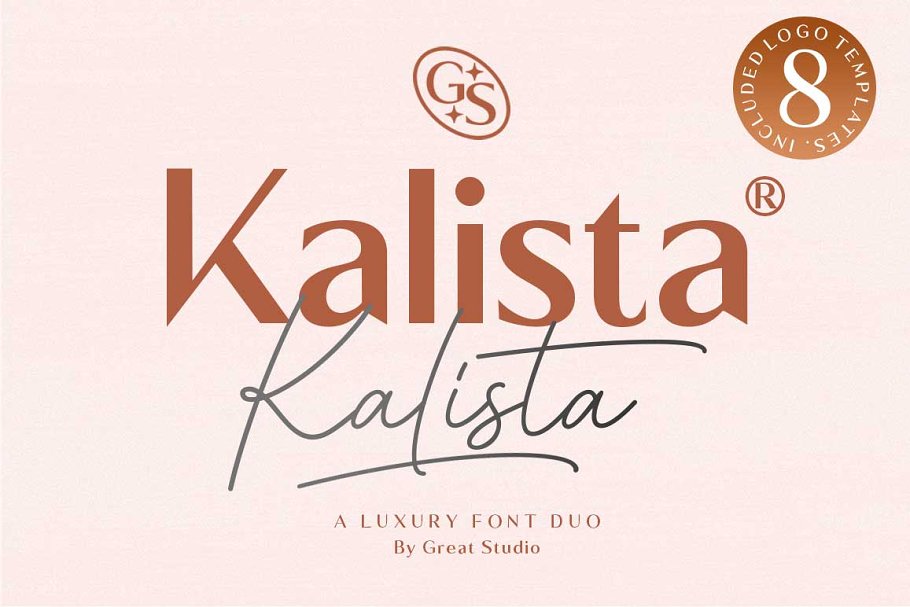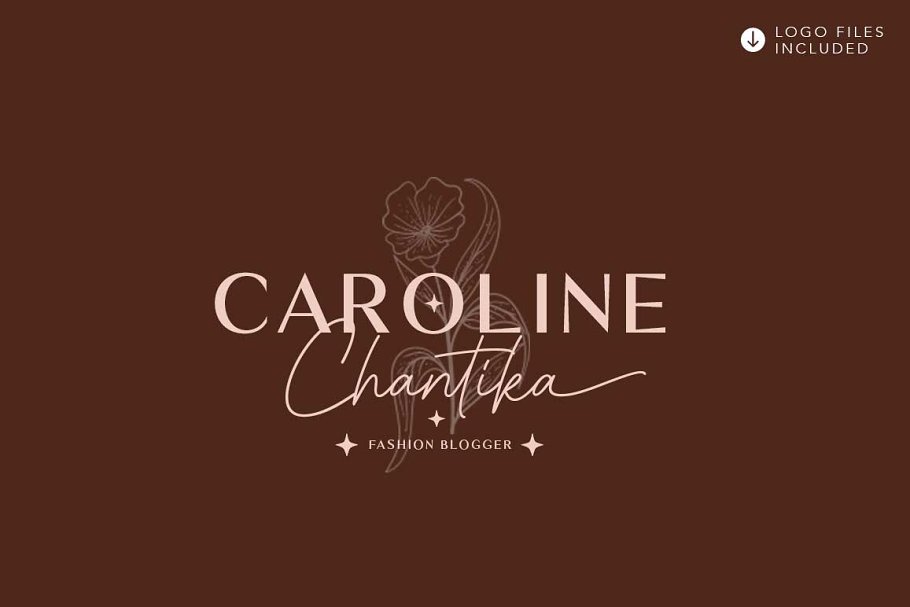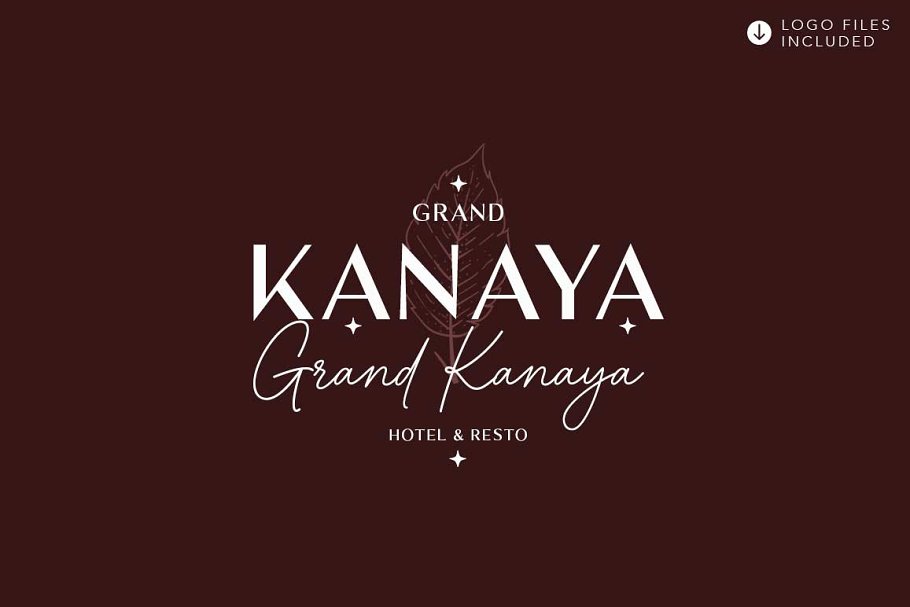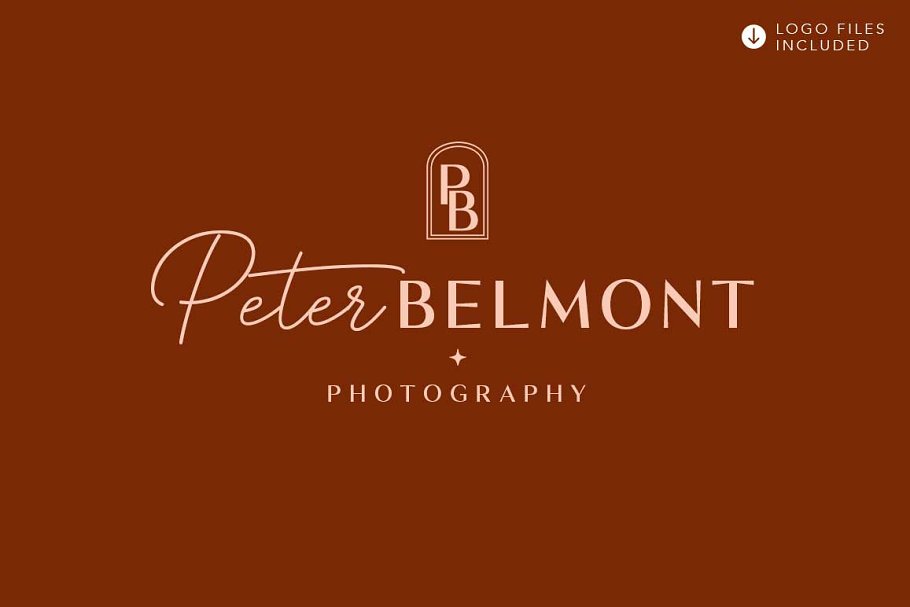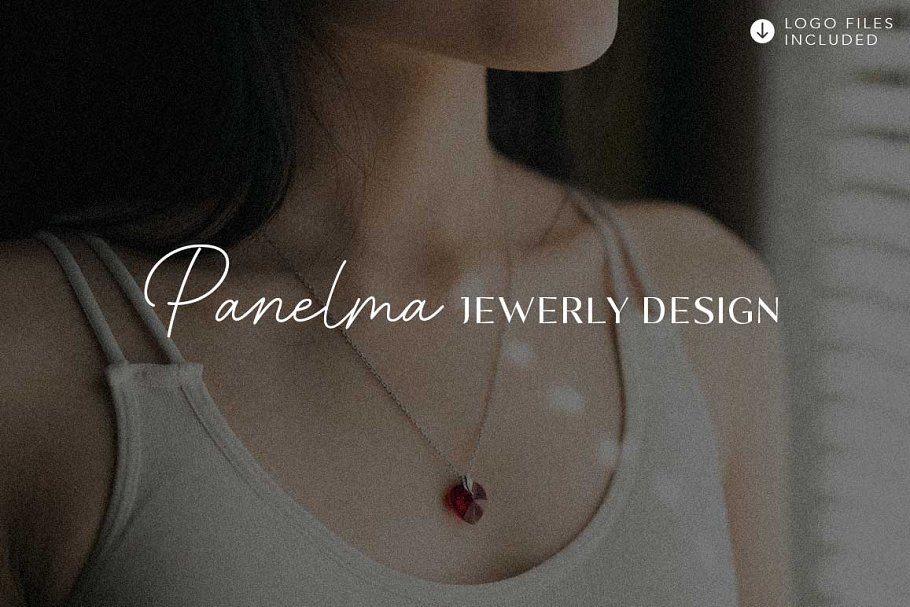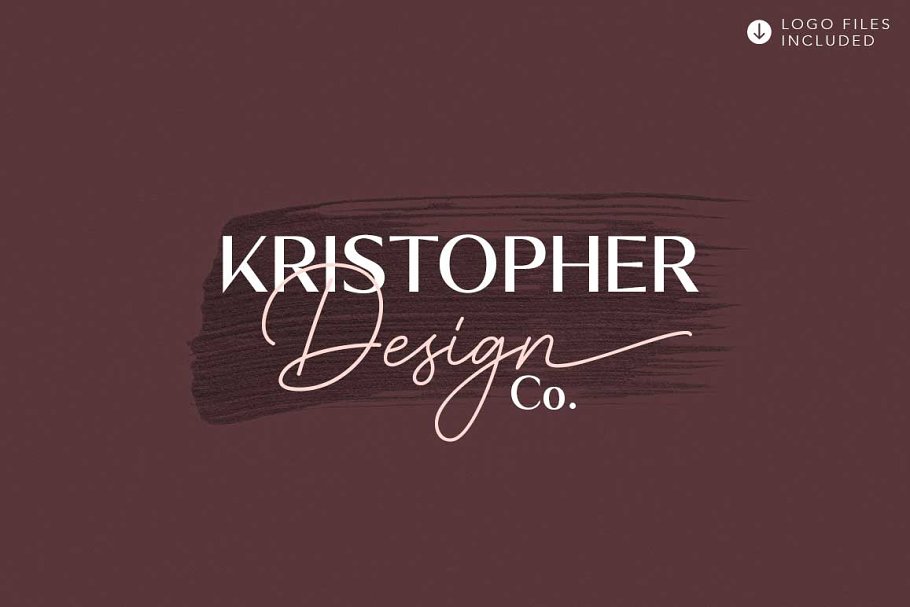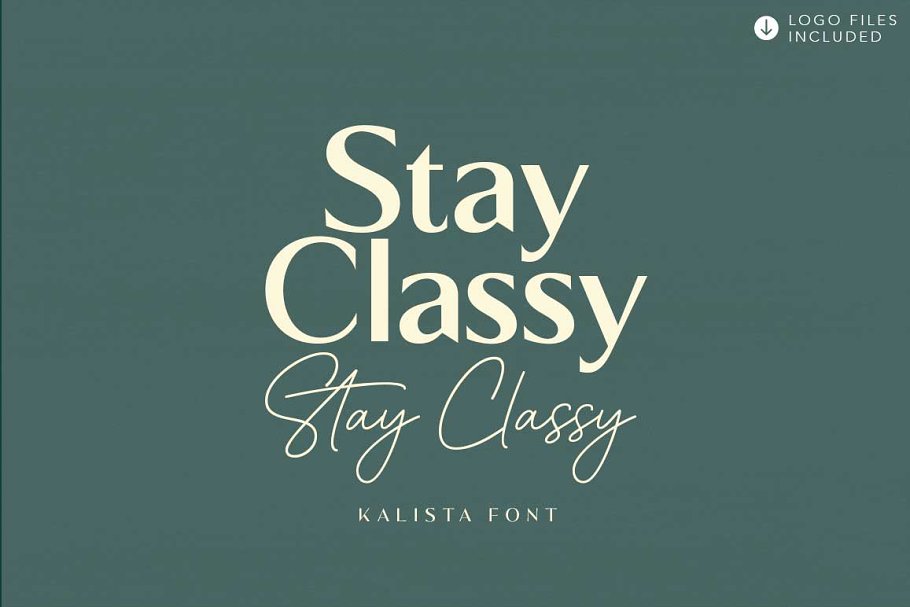
About the Kalista Duo Logo Font
Kalista Font is a luxury font, which comes with a combination of modern and elegant fonts, namely serif and signature style, You can combine them to create beautiful typography, This handcrafted style makes it perfect for use in all your design projects be it logos, labels, packaging designs, blog titles, posters, wedding designs, social media posts, Instagram designs, invitation cards, art quotes, home decor, book / title covers, etc